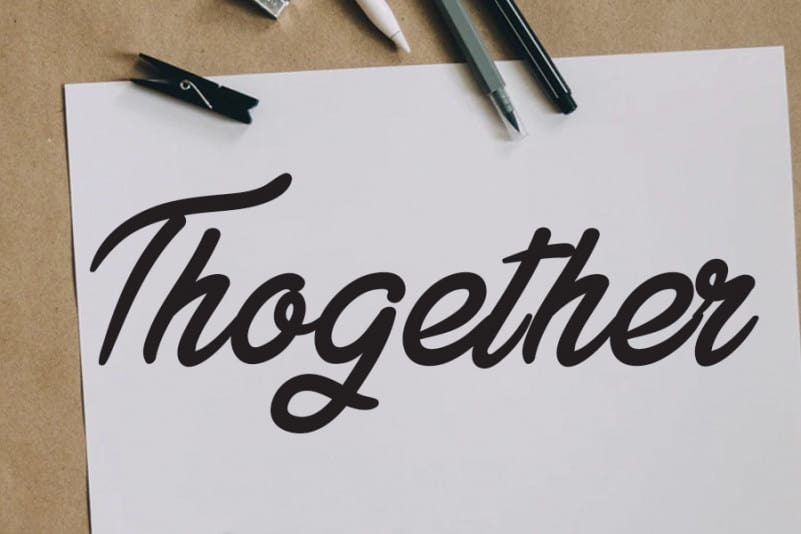
Kigallsama Handwritten Font
Kigallsama Handwritten Font simplifies elegance into one truly outstanding handwritten font. Whether it’s for web, print, moving images or anything else – Kigallsama will look spectacular.
The latest style letters are perfect for wall displays, wedding invitations, social media post logos, advertisements, product packaging, product designs, labels, photography, watermarks, invitations, stationery, and any project that requires taste handwriting.